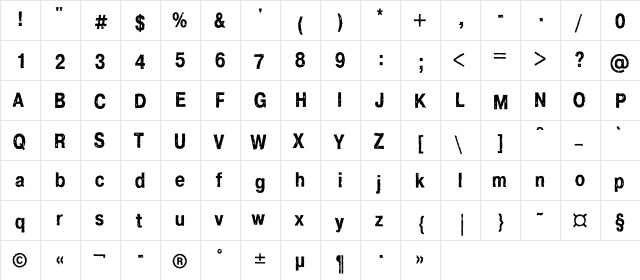
CrashC Regular
Design Context for CrashC Typeface
CrashC is a composed and adaptable typeface that performs quietly and consistently across a wide range of design contexts.
Pro Tip: Pair CrashC with a font of contrasting weight or personality to build a more expressive typographic hierarchy.